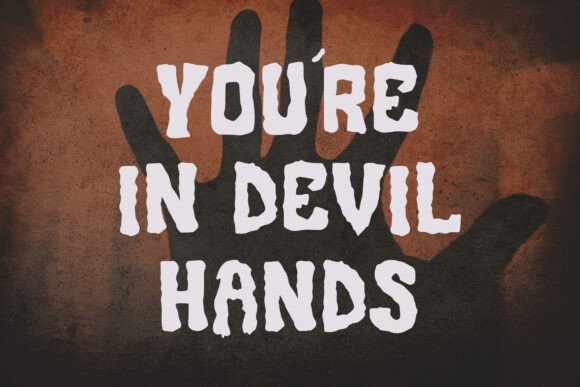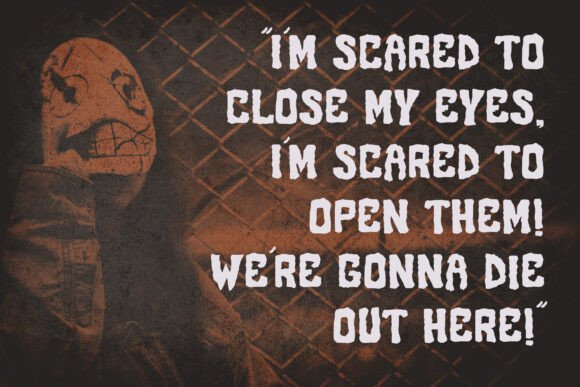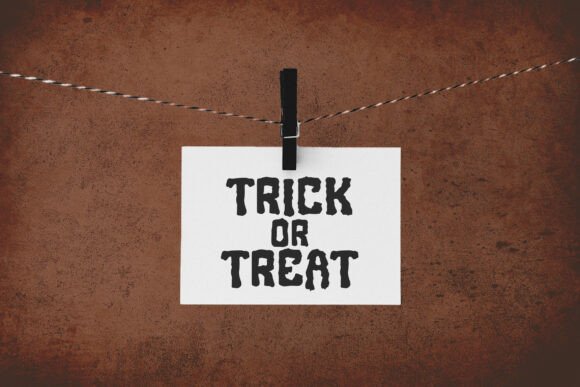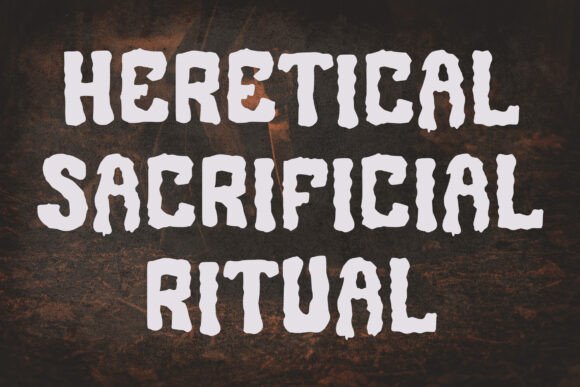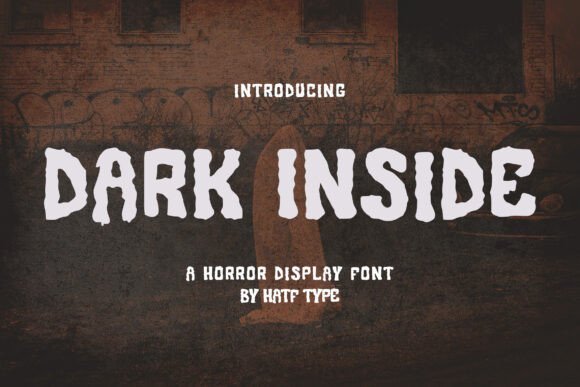
Unleash the Shadows: Exploring the Eerie Charm of Dark Inside Font
Immerse yourself in the intriguing blend of shadows and artistry that is Dark Inside, a horror-inspired display font that weaves a chilling ambience through its unique contours and stark, angular characters. This distinctive typeface embodies raw, organic strokes and eerily anthropomorphic silhouettes, beckoning the untamed spirit of suspense and inviting designers to craft riveting designs that leave a lasting impression.
The Haunting Beauty of Dark Inside
Dark Inside Font is a masterful creation that combines the darker aspects of art and design, channeling the eerie and the unknown into a visually striking display font. Its unique contours and stark, angular characters evoke a sense of foreboding, conjuring images of haunted mansions, creepy crawlies, and the supernatural. The font’s raw, organic strokes and eerie silhouettes seem to leap off the page, imbuing any design with an air of mystery and suspense.
Crafting Riveting Designs with Dark Inside
Imagine the spellbinding potential of horror film posters, thriller novel covers, or even gothic apparel designs, each crafted with the undeniably haunting Dark Inside typeface. This font is tailor-made for designers looking to create eye-catching and unsettling designs that capture the essence of the horror genre. Whether you’re designing a movie poster, a book cover, or a t-shirt, Dark Inside Font provides the perfect blend of eerie elegance and macabre charm.
Ideal for Horror and Gothic-Inspired Designs
Dark Inside Font is the perfect choice for designers who specialize in horror and gothic-inspired designs. Its haunting beauty and eerie charm make it an ideal fit for a wide range of projects, including:
- Horror film posters and movie trailers
- Thriller novel covers and book jackets
- Gothic apparel designs and merchandise
- Haunted house and attraction marketing materials
- Dark and moody editorial designs
Tips for Using Dark Inside Font Effectively
To get the most out of Dark Inside Font, here are some expert tips for using it effectively in your designs:
- Pair it with bold, contrasting colors to amplify the eerie effect
- Experiment with different textures and overlays to add depth and dimension
- Use it sparingly to create emphasis and draw attention to key elements
- Combine it with other fonts to create a unique and captivating visual hierarchy
Dark Inside Font is a game-changer for designers looking to add a touch of horror and suspense to their work. With its unique blend of shadows and artistry, this haunting typeface is sure to leave a lasting impression on your audience. Whether you’re a seasoned designer or just starting out, Dark Inside Font is an essential tool to have in your creative arsenal. So why wait? Unleash the shadows and let your imagination run wild with Dark Inside Font.